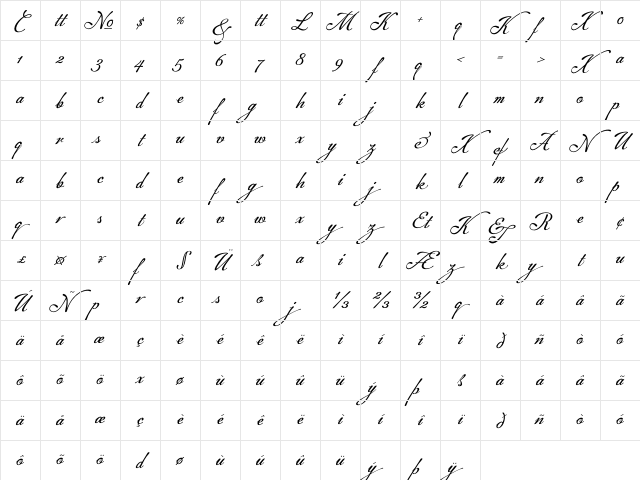
Machia Xtra One Regular
Foundry: Ryoichi Tsunekawa, Flat it type foundry
Designer: Ryoichi Tusnekawa
Design Context for Machia Xtra One
Machia Xtra One is a composed and adaptable typeface that performs quietly and consistently across a wide range of design contexts.